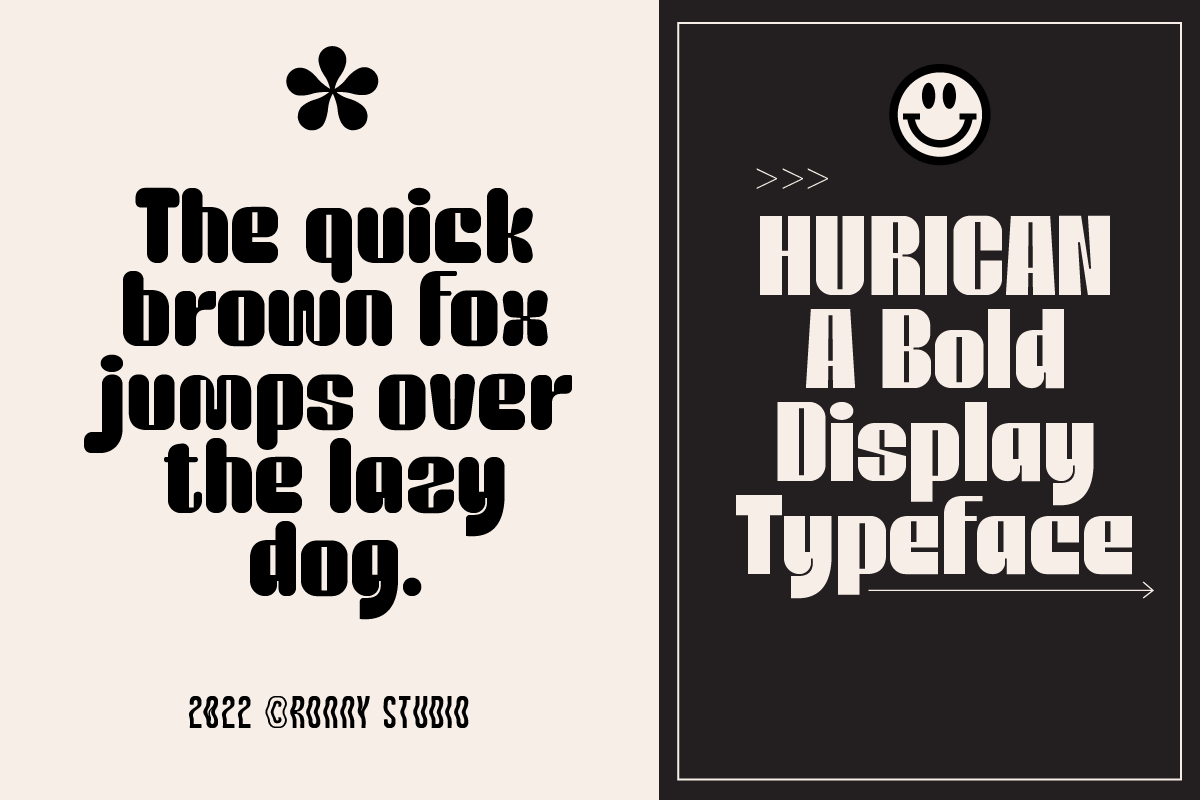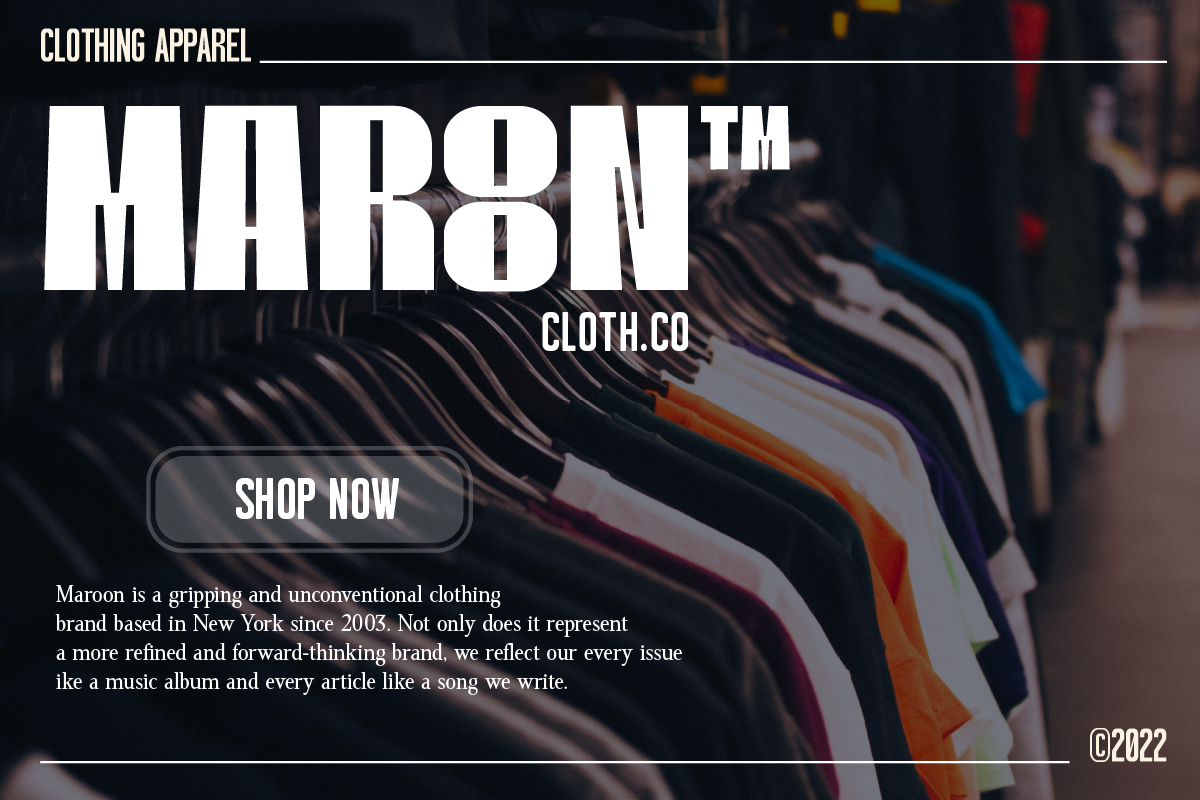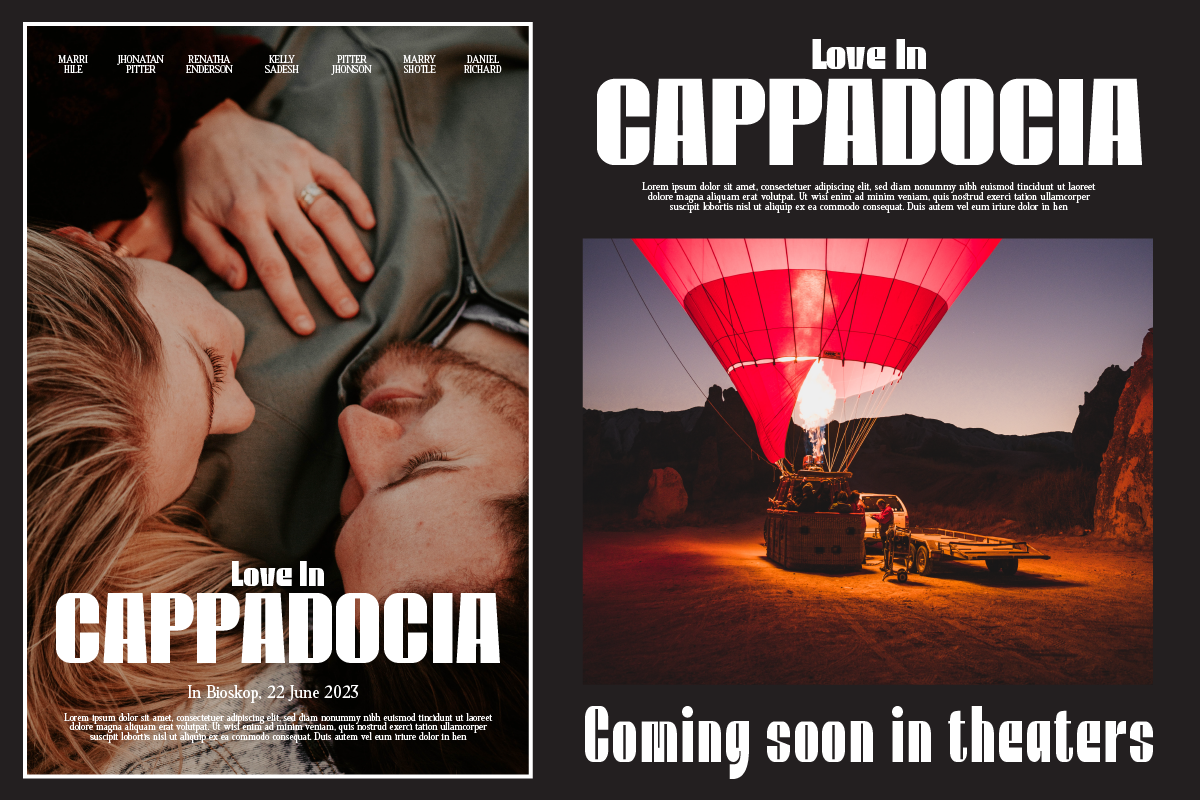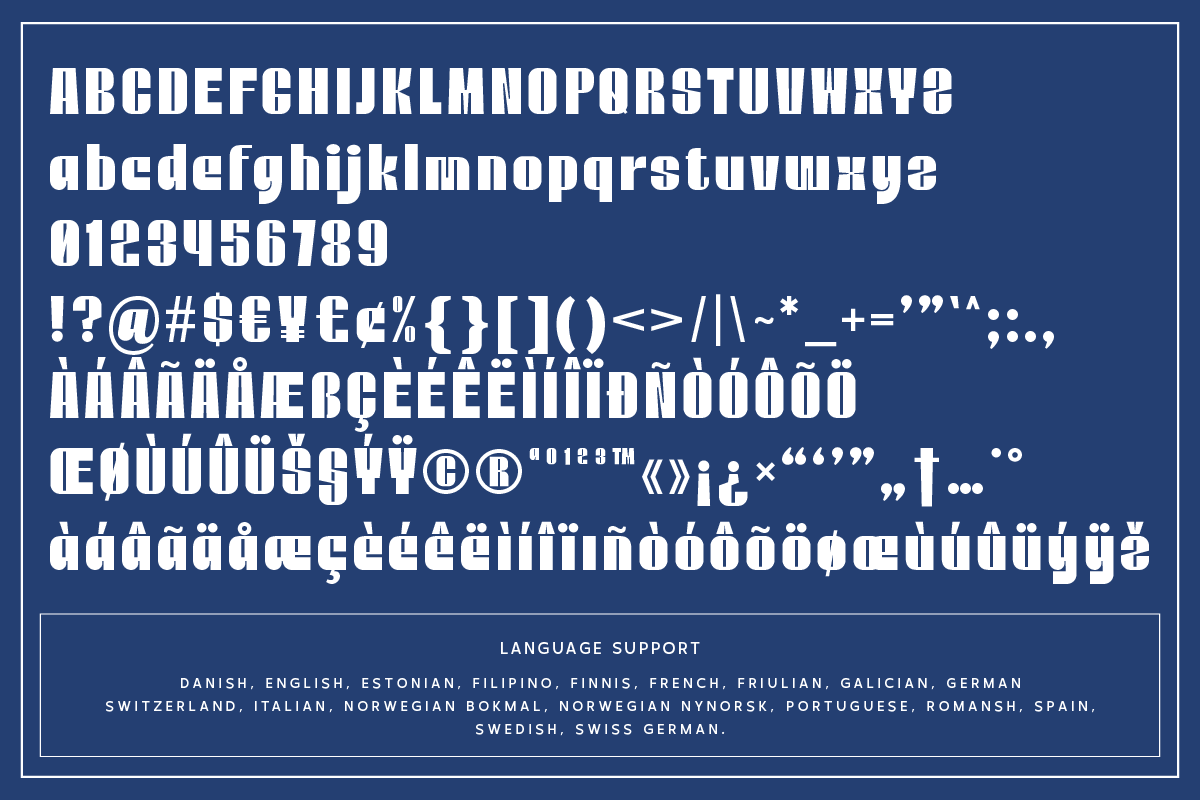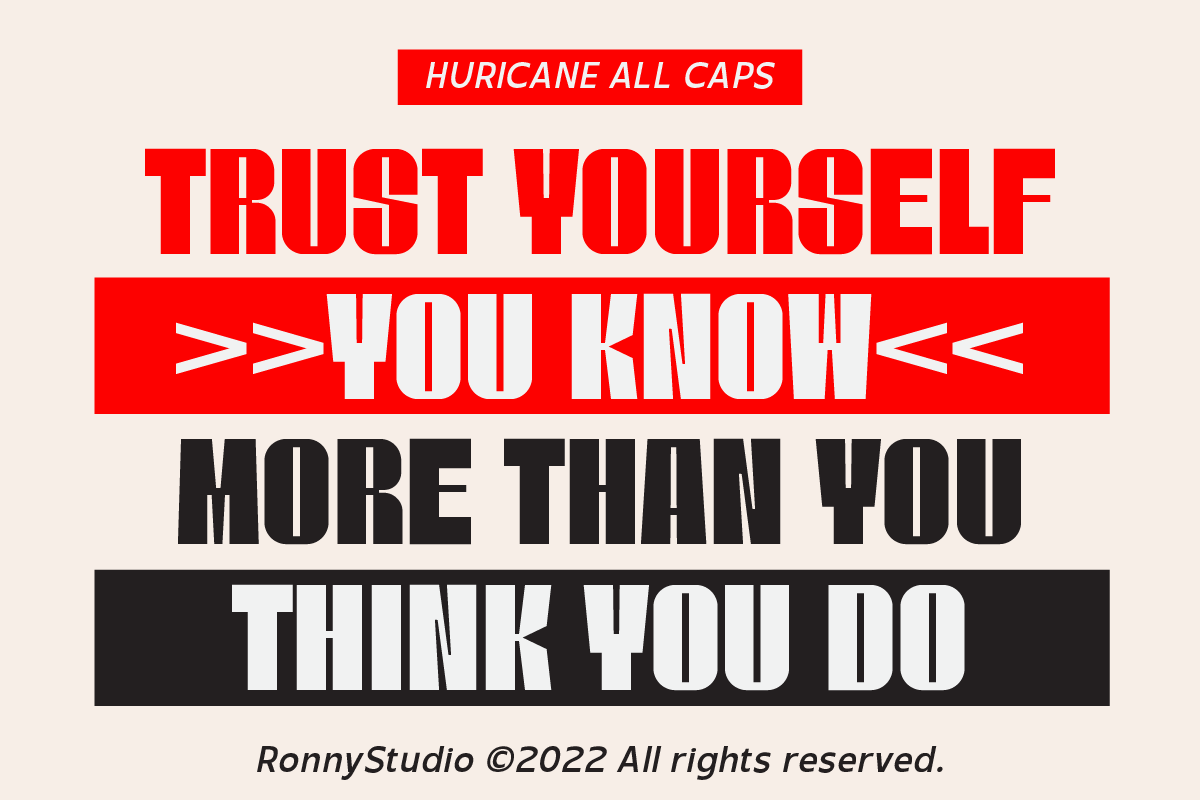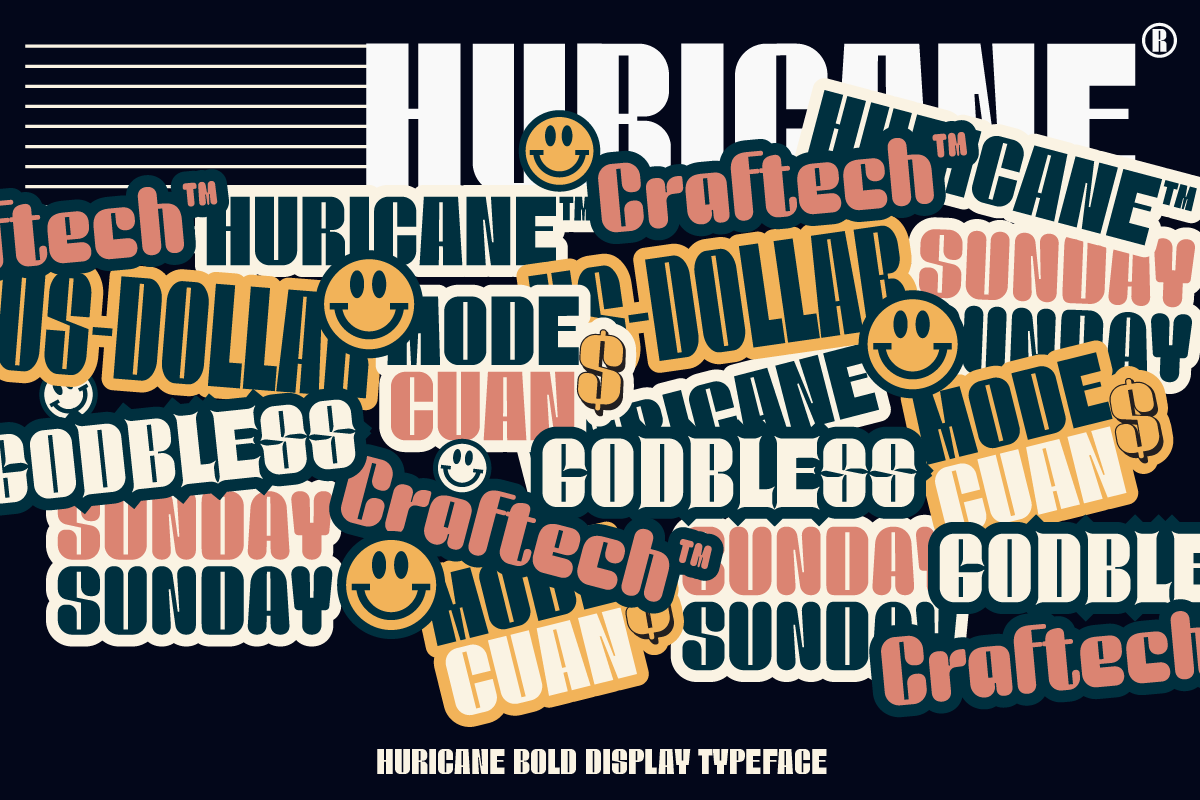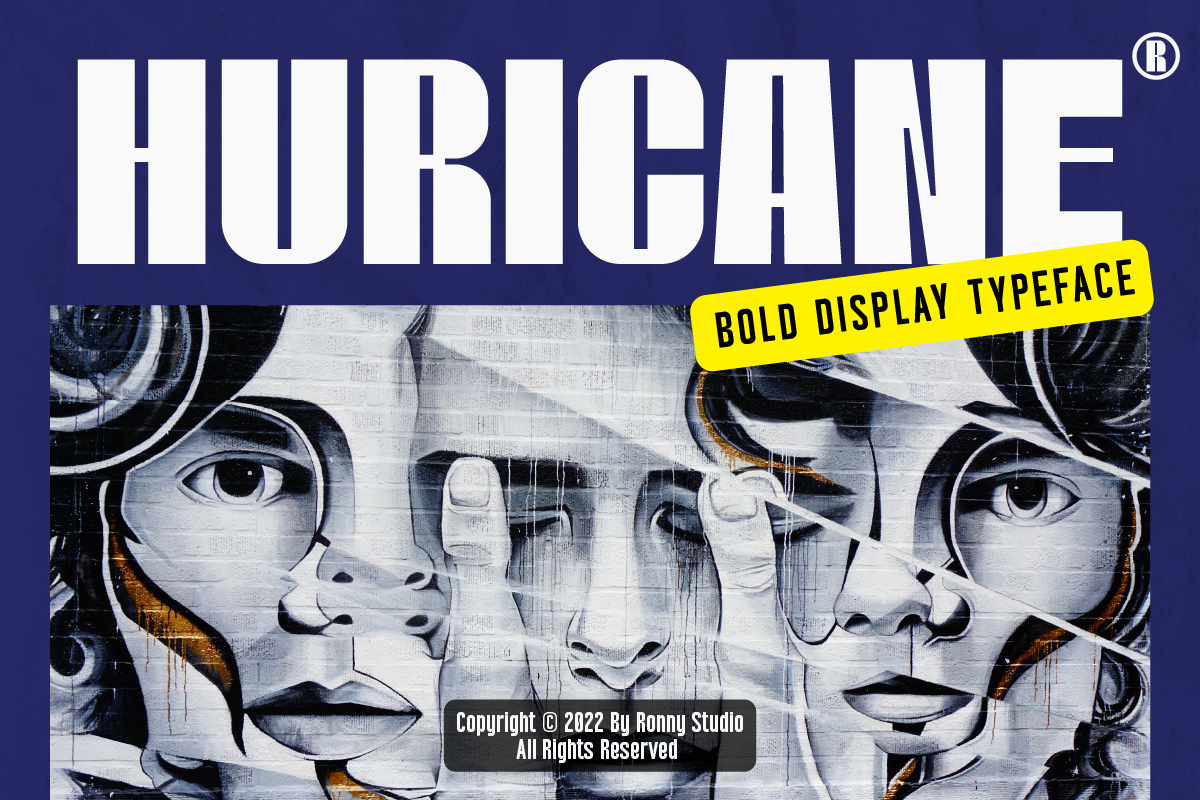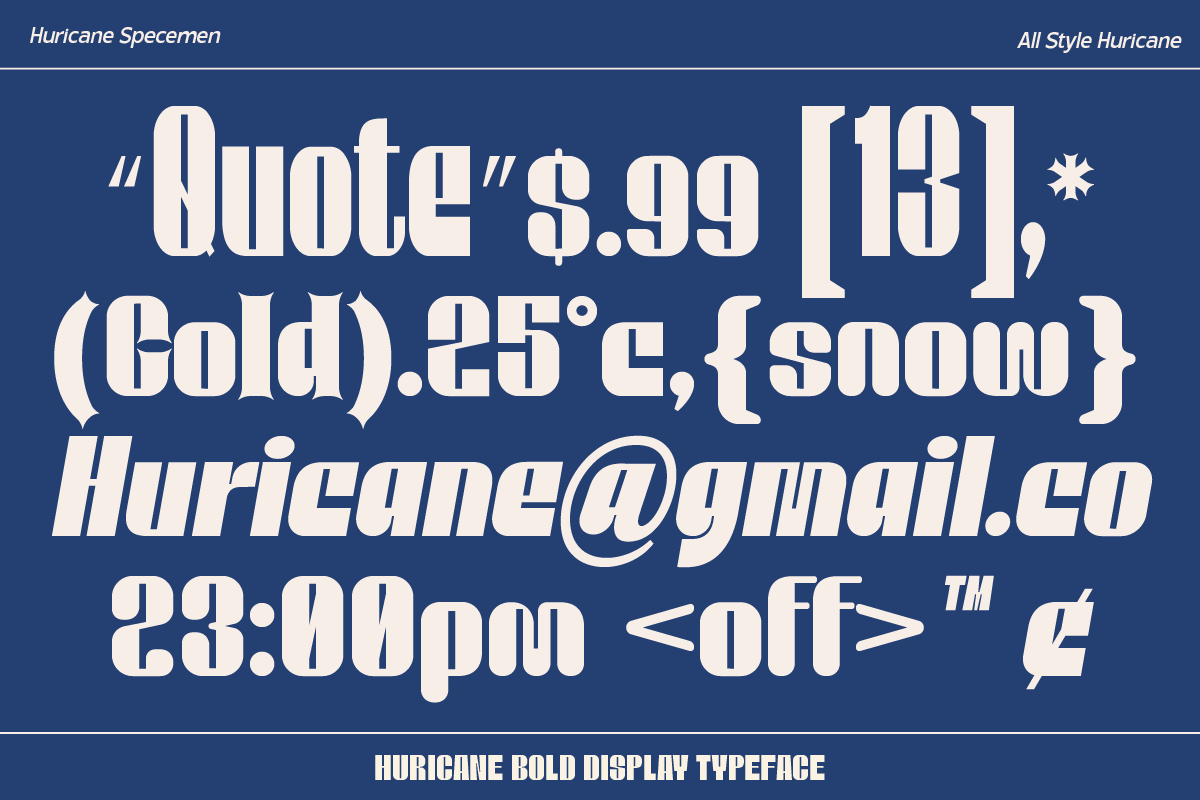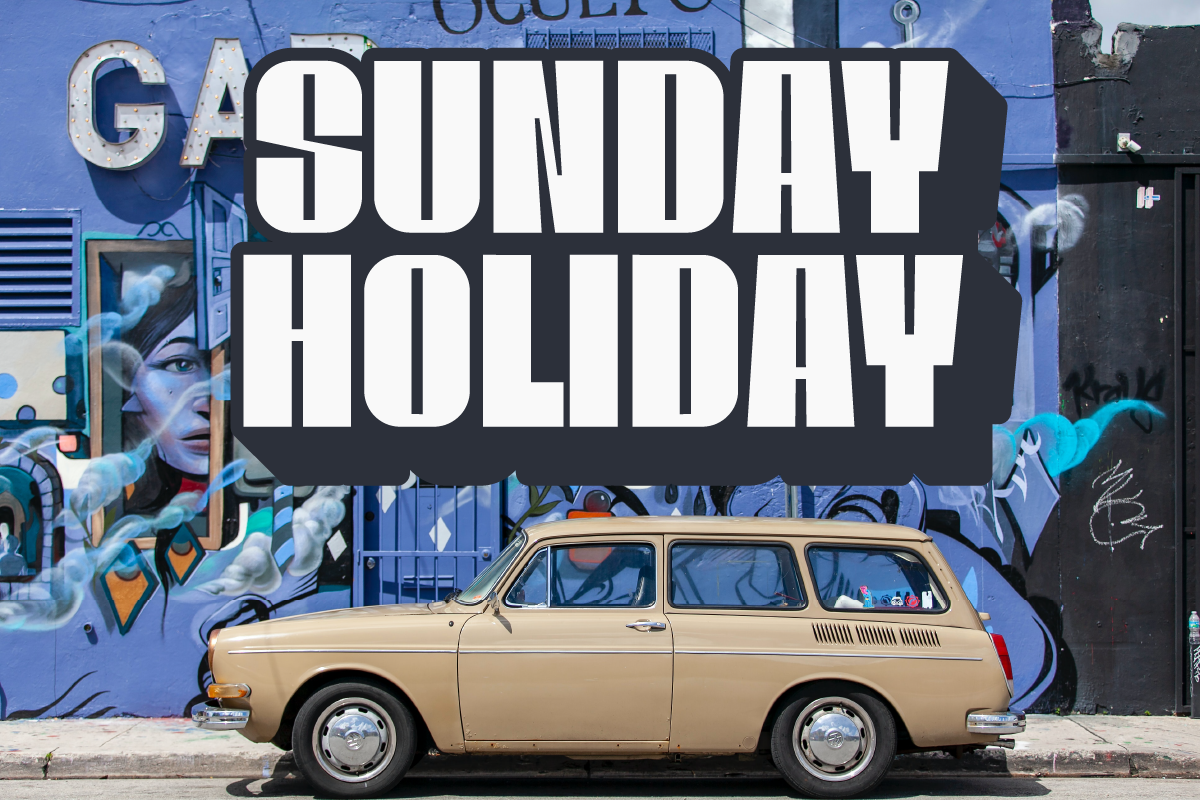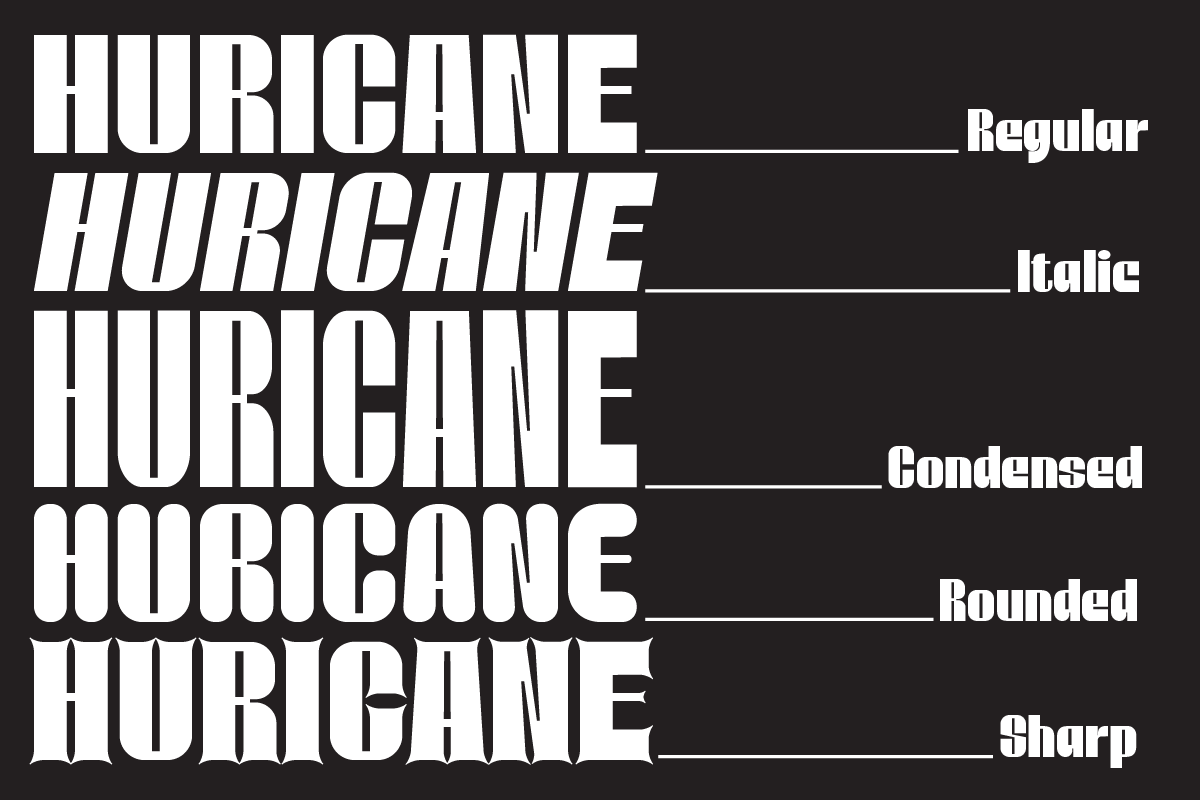
Huricane Sans Bold Display Font
HURICANE – A Powerful Bold Display Typeface for Strong Branding 💥
Meet HURICANE, a bold and striking sans serif display font designed for powerful headlines, impactful branding, and eye-catching posters. With its strong geometric structure and dynamic letterforms, HURICANE is perfect for designs that demand attention.
🔠 Key Features:
✅ Bold & Strong Typeface – Designed to stand out in any design project.
✅ Modern & Versatile – Perfect for logos, posters, sports branding, and editorial use.
✅ Opentype Features – Includes ligatures, alternates, and stylistic variations.
✅ Multilingual Support – Covers multiple languages for international projects.
🚀 Perfect for: Advertising, Music Covers, Sports, Urban Branding, Gaming, and More!
💡 Make a Bold Statement with HURICANE – The Font That Demands Attention!